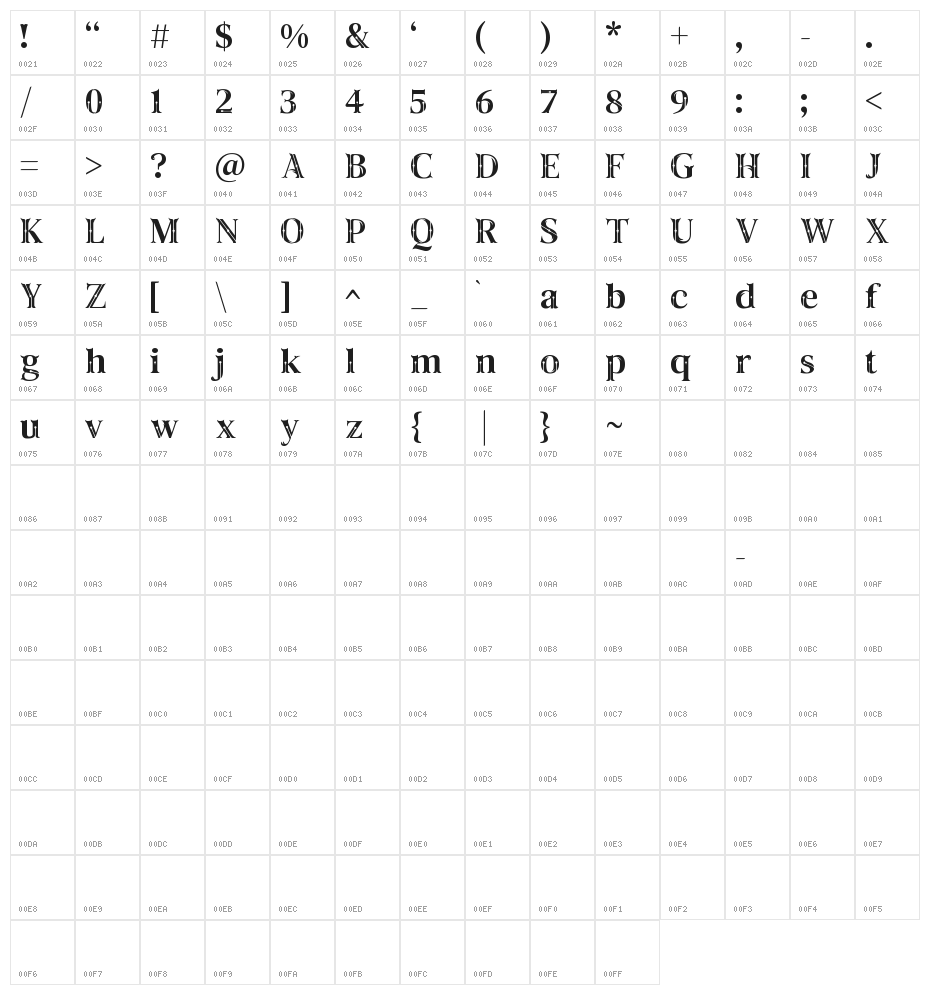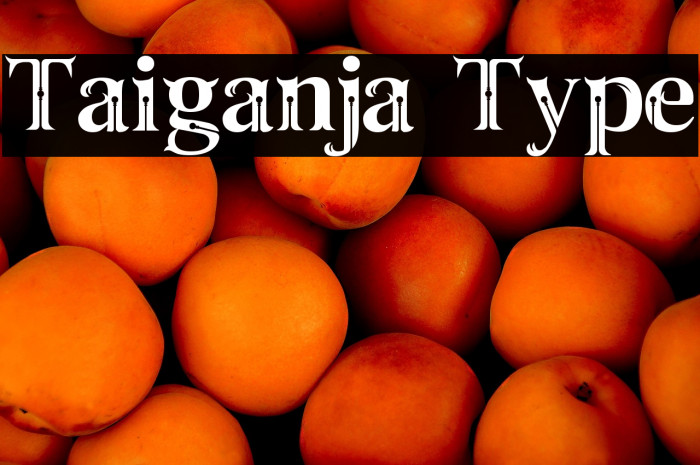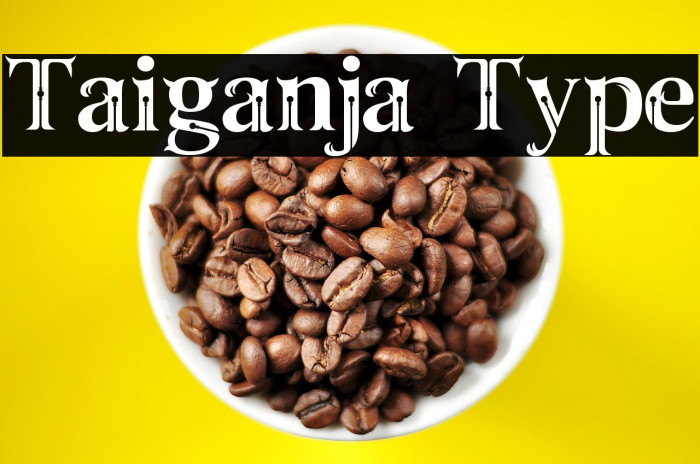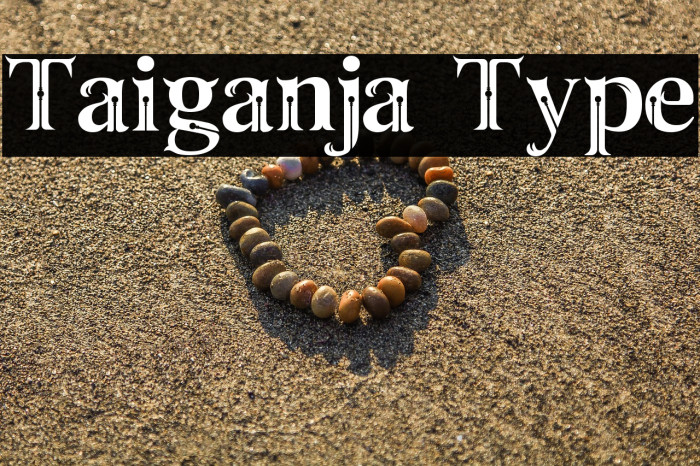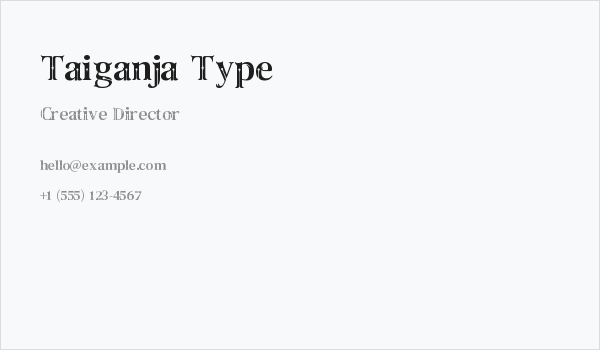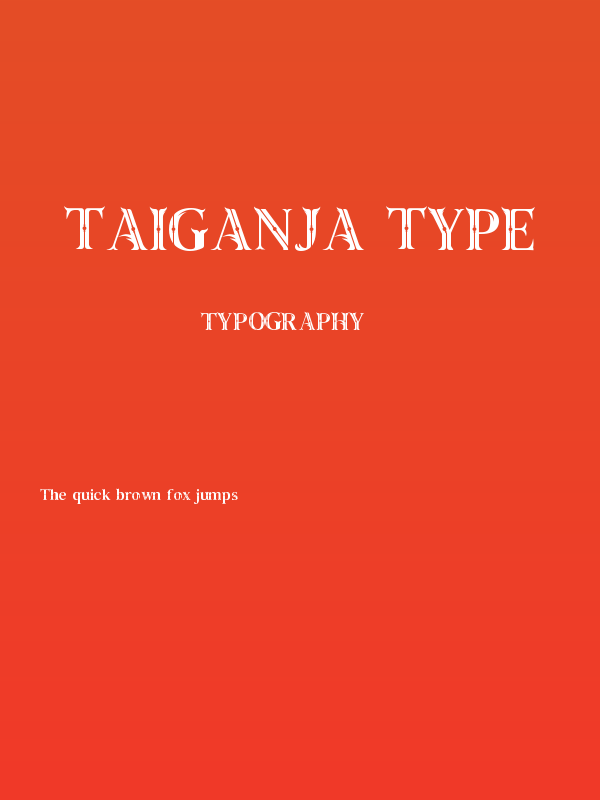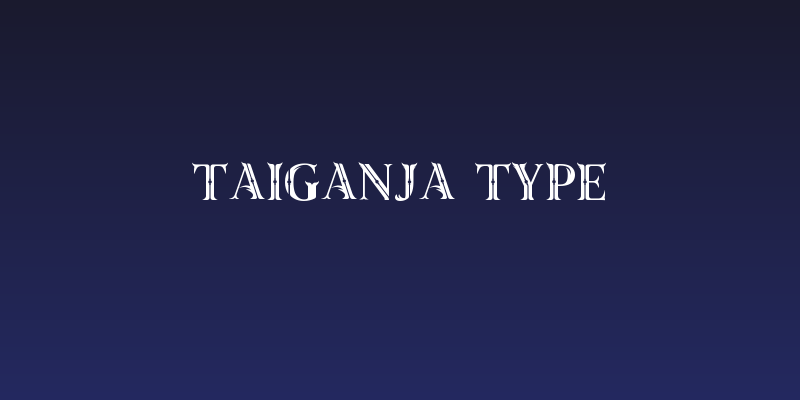
Taiganja Type Font
Taiganja Type Description
This font features a bold and dramatic style with high contrast between thick and thin strokes. The characters have a unique, decorative flair with pointed serifs and intricate detailing that adds a sense of elegance and sophistication. The uppercase letters are particularly striking, with a strong presence that commands attention. The lowercase letters maintain the same decorative elements, ensuring consistency throughout the typeface. Numerals and special characters are equally ornate, making this font suitable for a variety of creative applications.
| Proposed Projects | Ideal for branding, poster design, book covers, and any project that requires a dramatic and elegant typeface. |